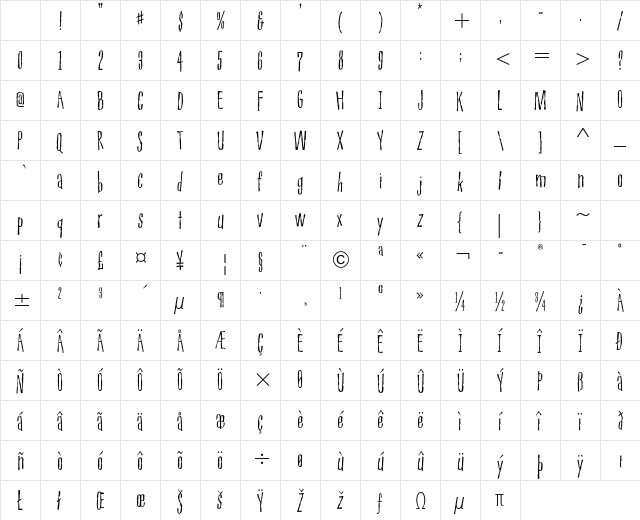
Pious Henry ITC Std Regular
Designer: Eric Stevens
Design Context for Pious Henry ITC Std
Pious Henry ITC Std is a composed and adaptable typeface that performs quietly and consistently across a wide range of design contexts.